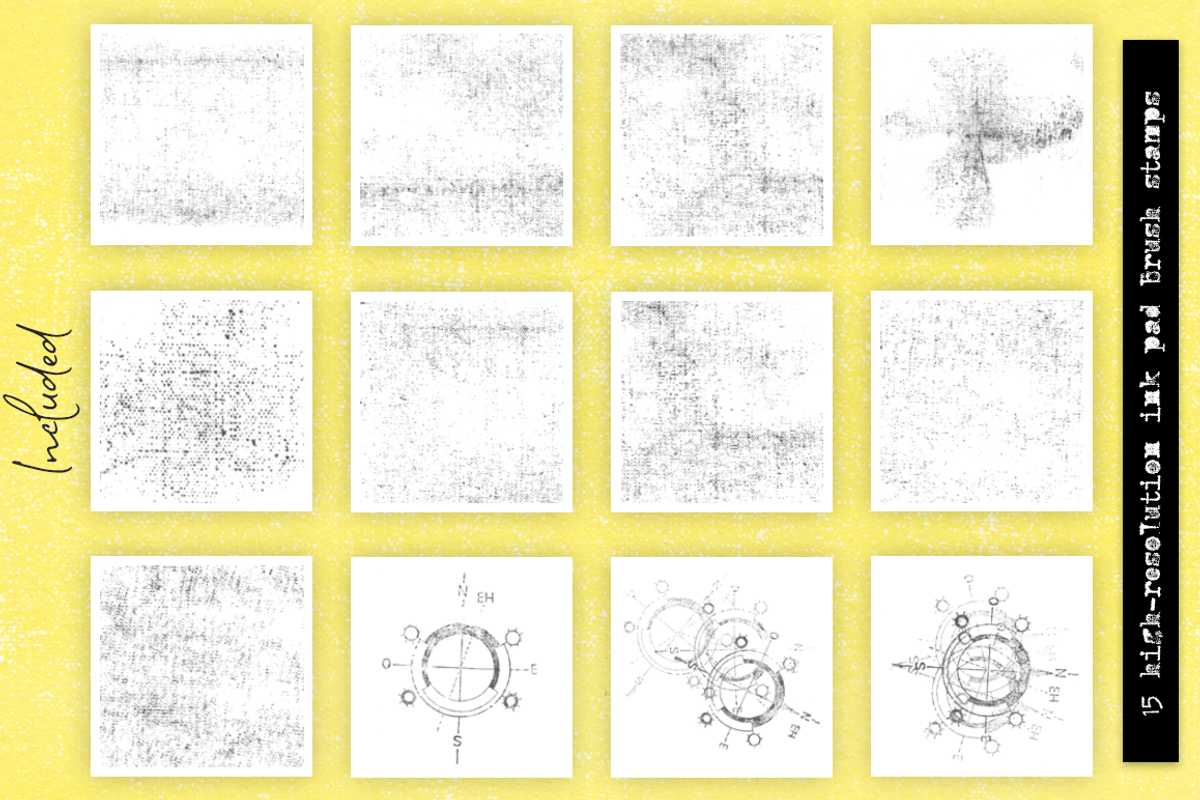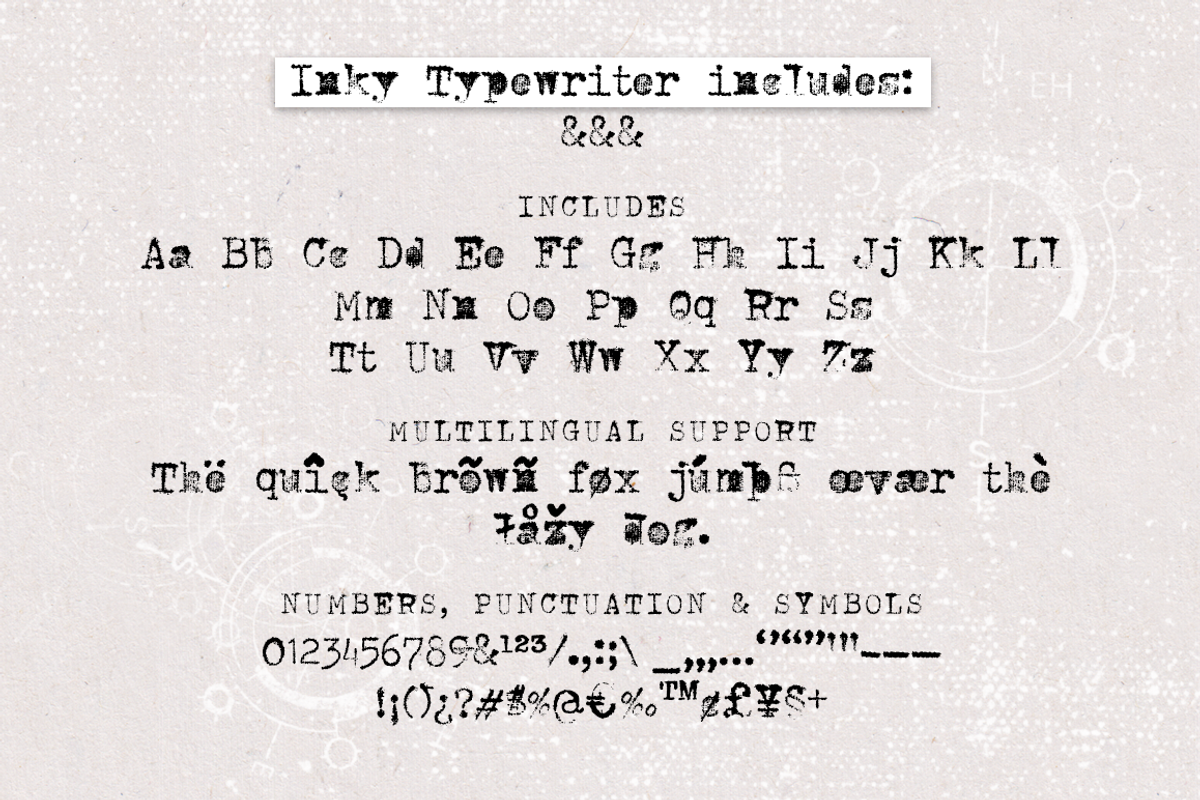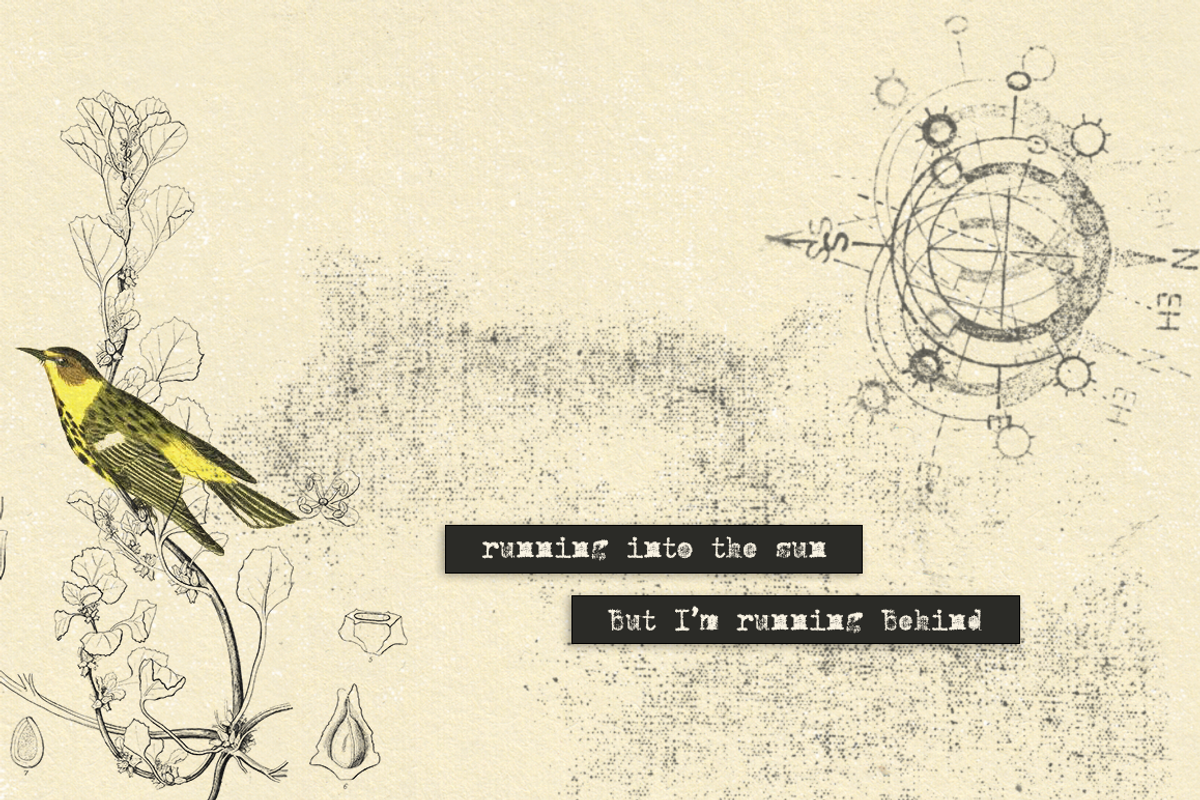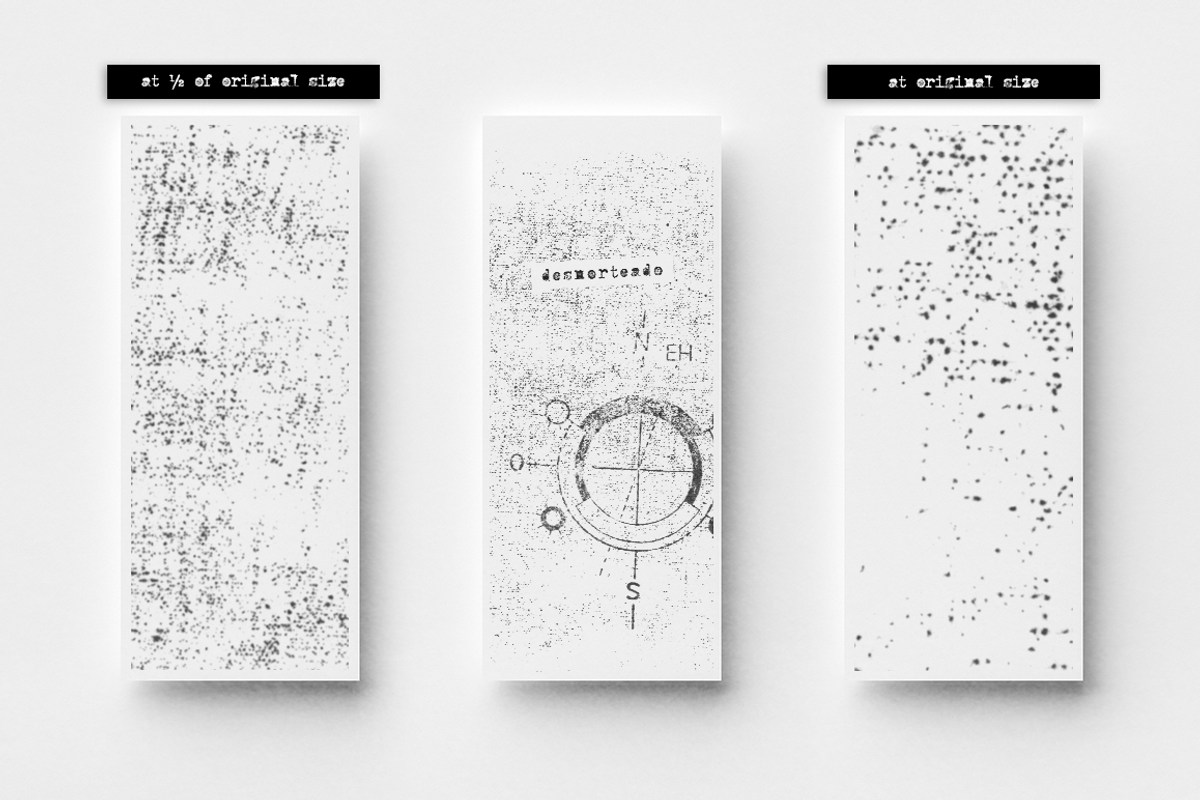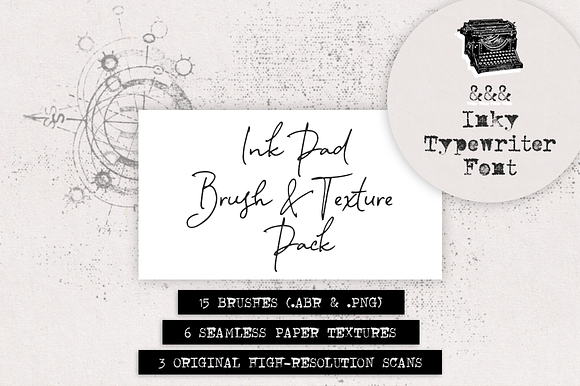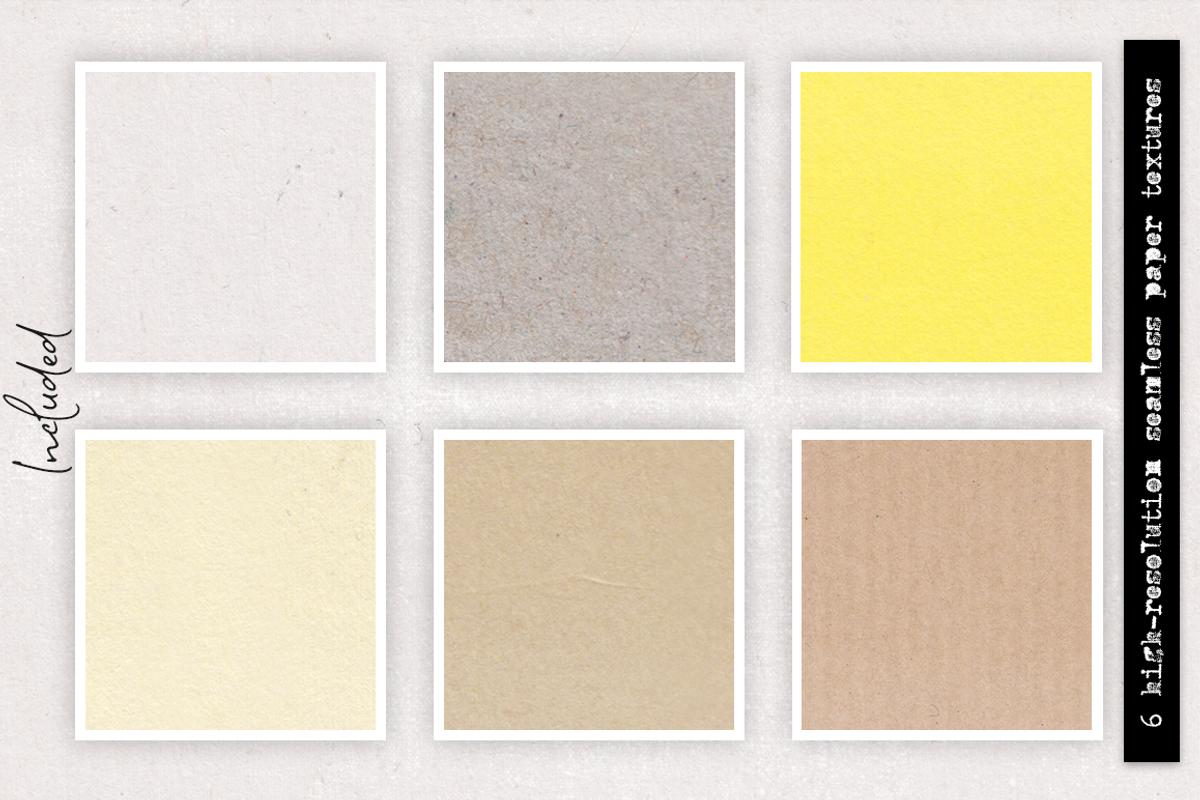
Typewriter Font and Ink Pad Textures
Inky Typewriter is a grungy typewriter font sampled from a real vintage typewriter.
Perfect for adding a little grunge or a vintage look to your designs, in posters, postcards, packaging, branding, social media posts, etc.